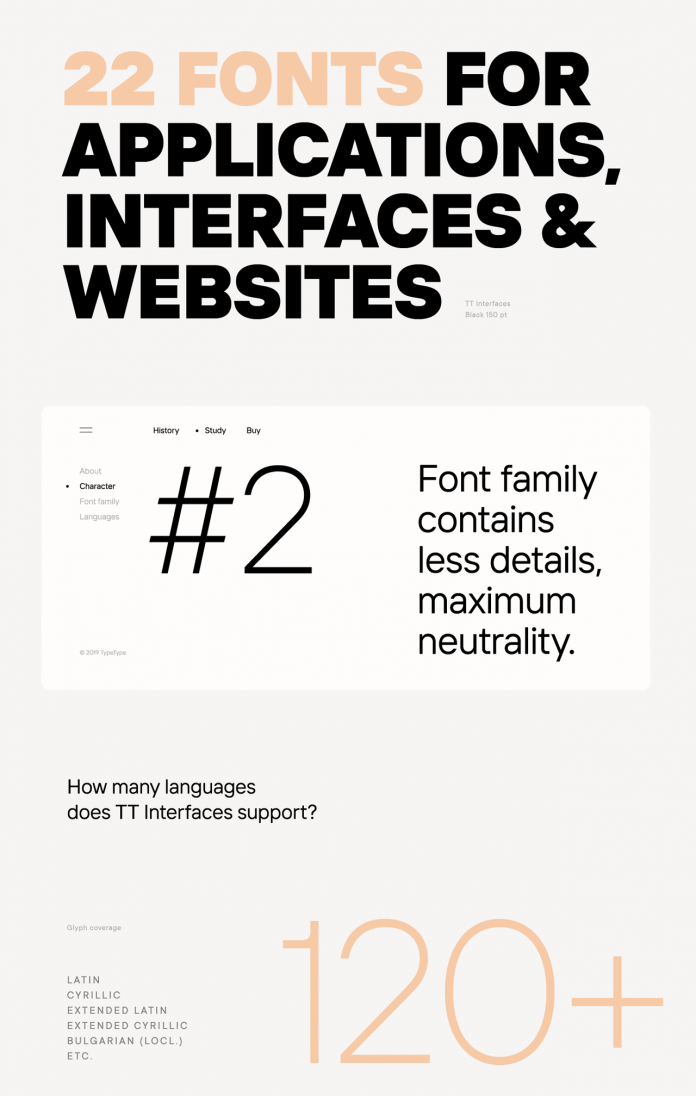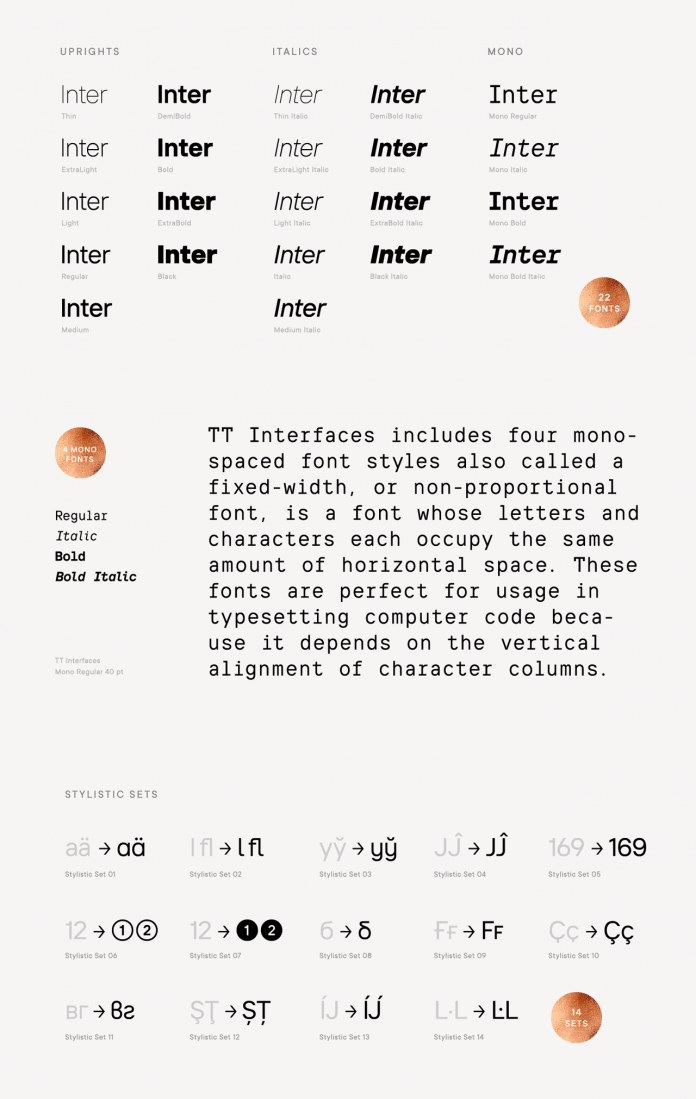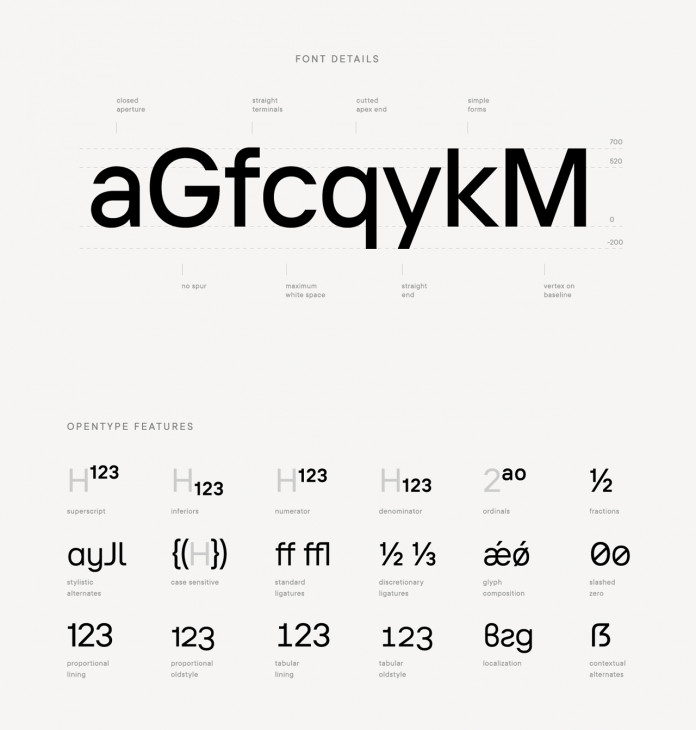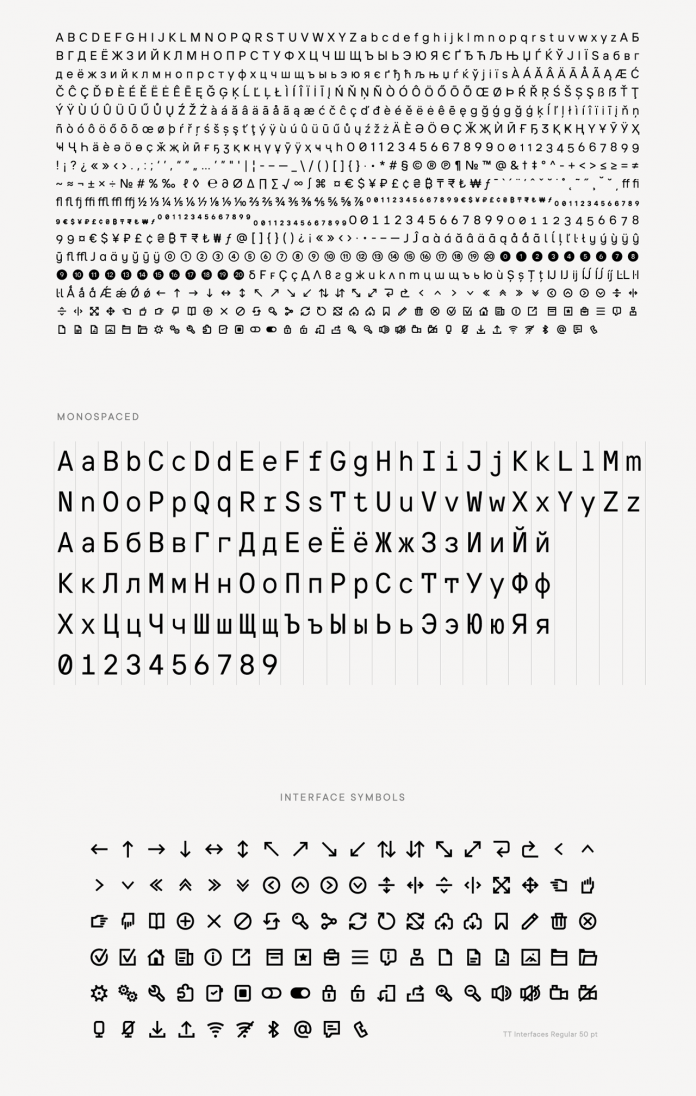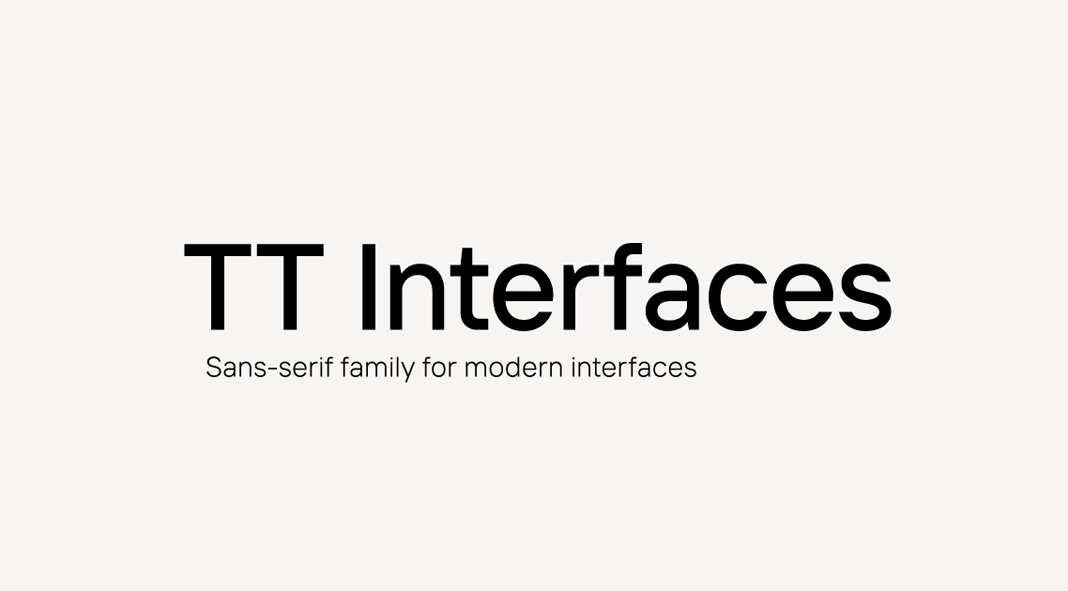
TT Interfaces: The perfect font family for modern interfaces and all common mobile and web platforms.
Oh boy, this typeface is pretty hot right now! Just recently published by the TypeType foundry, TT Interfaces is dedicated to the typographic needs of today’s screen designs. The font family was designed by Nadezhda Polomoshnova, Pavel Emelyanov, Marina Khodak, and Kseniya Karataeva. It consists of 22 styles including 18 styles (9 weights with 9 matching obliques) in the basic family and 4 monospaced fonts. This modern sans-serif typeface is characterized by the open aperture of the characters and great readability on any screen size. Despite being a rather neutral font family, TT Interfaces offers an elegant look and feel, while all typographic details are based on mathematical precision.
The TT Interfaces font family is also equipped with plenty of OpenType features such as old-style figures, ligatures, stylistic alternates, mathematical signs, and 100 symbols divided into five topics: basic actions, states, sections of the site, documents & folders, and mobile interface design. The massive character set supports over 180 languages based on extended Latin and Cyrillic letters including Bulgarian localization. I think that’s not just my opinion but this family is a must-have for all web designers and developers. To learn more, just click on one of the following links or have a look at the images below.